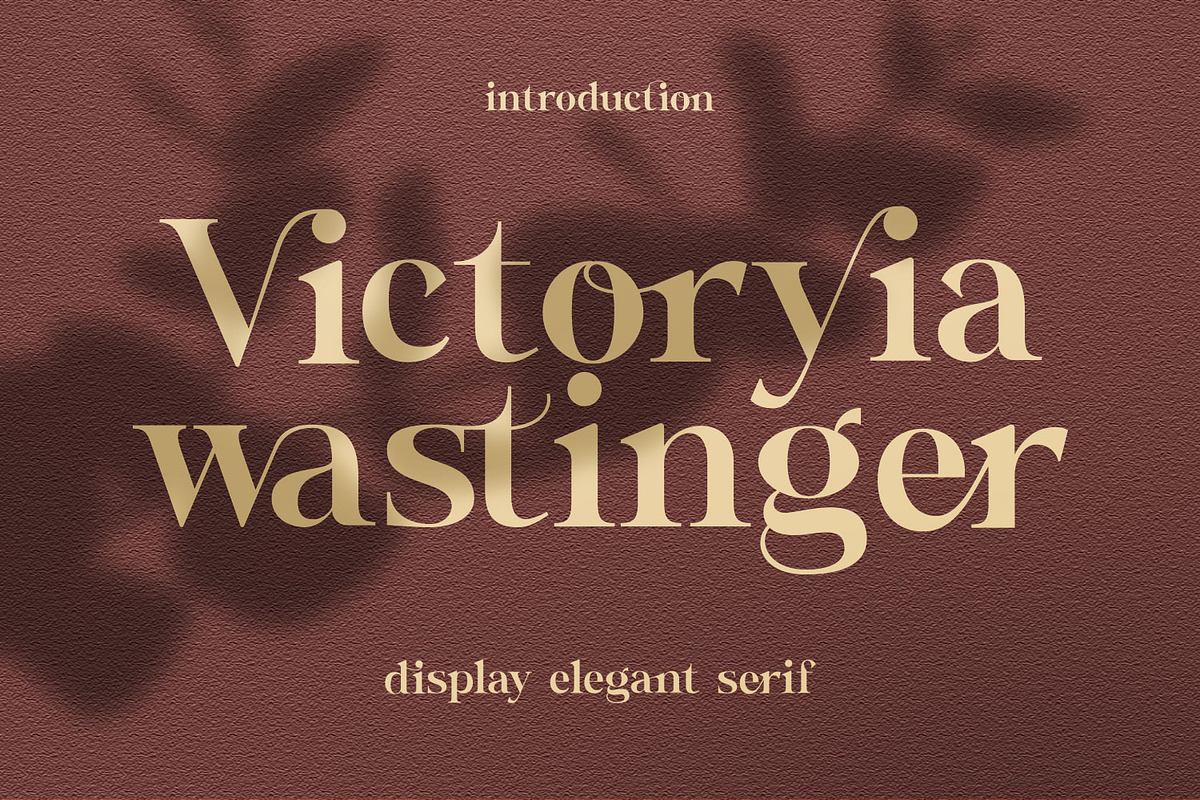
The Wastinger Elegant Display Free Download is a refined and sophisticated font that adds a touch of elegance to any design. Perfect for upscale branding, luxury product packaging, or stylish headers, this font brings a polished, high-end feel to your projects. Please note, for commercial use, a license must be purchased. You can download it for free for testing purposes.
With its sharp lines and distinctive design, the Wastinger Elegant Display Free Download is ideal for creating eye-catching titles, logos, and posters that demand attention. Whether you're working on fashion, beauty, or upscale event branding, this font provides the perfect balance of elegance and readability.